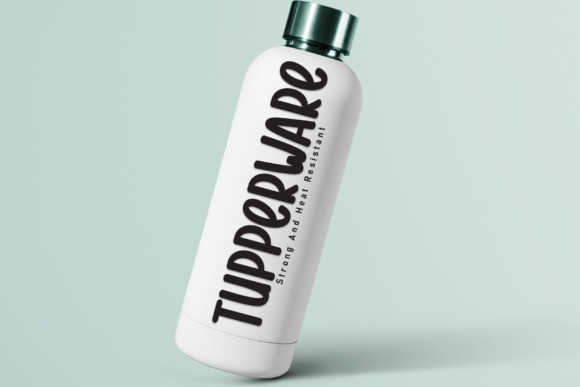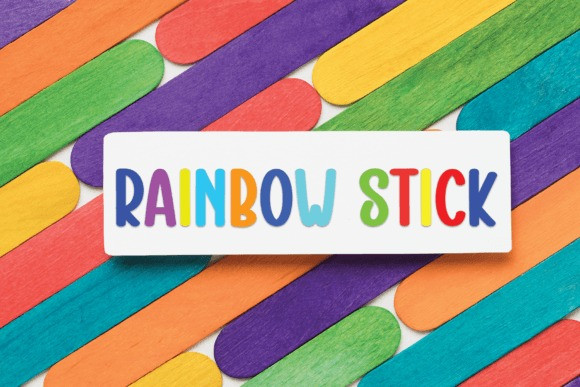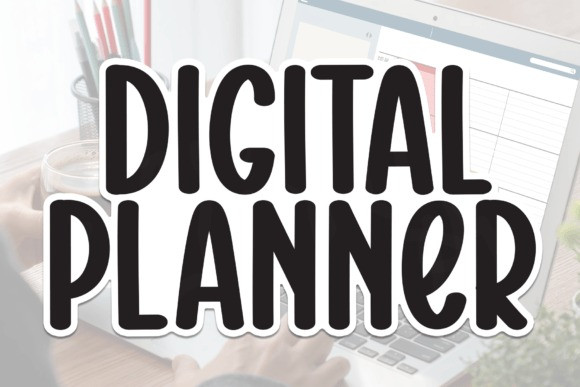
Digital Planner Typeface
Digital Planner Typeface is a sweet and friendly handwritten font. Its natural and unique style makes it incredibly fitting to a large pool of designs. The only limit is your imagination!